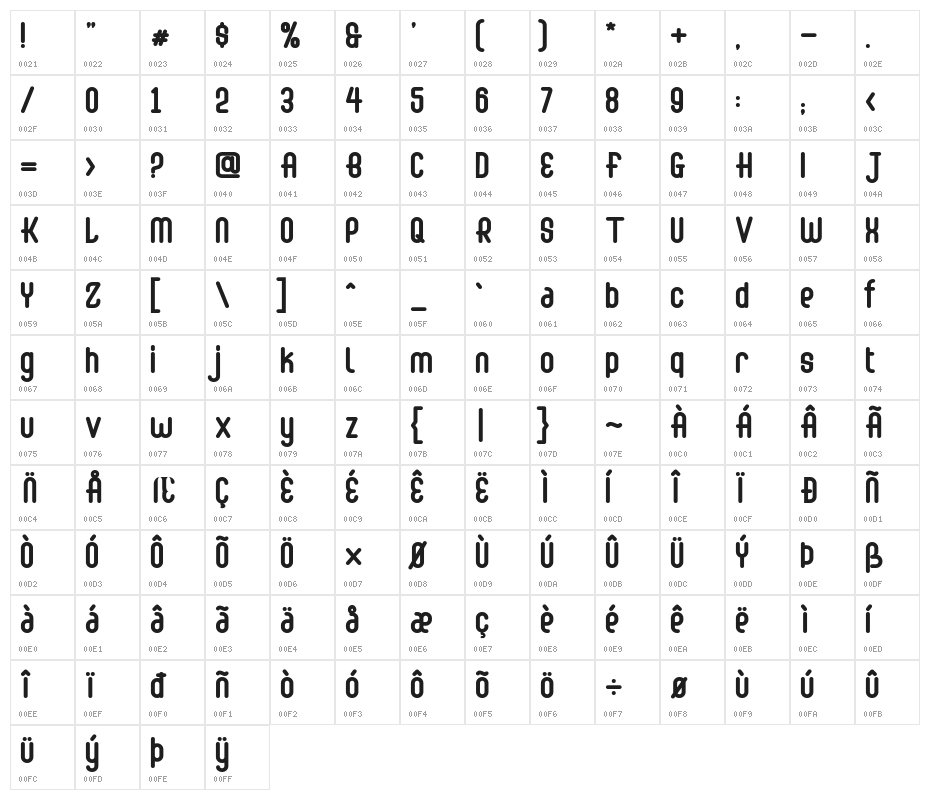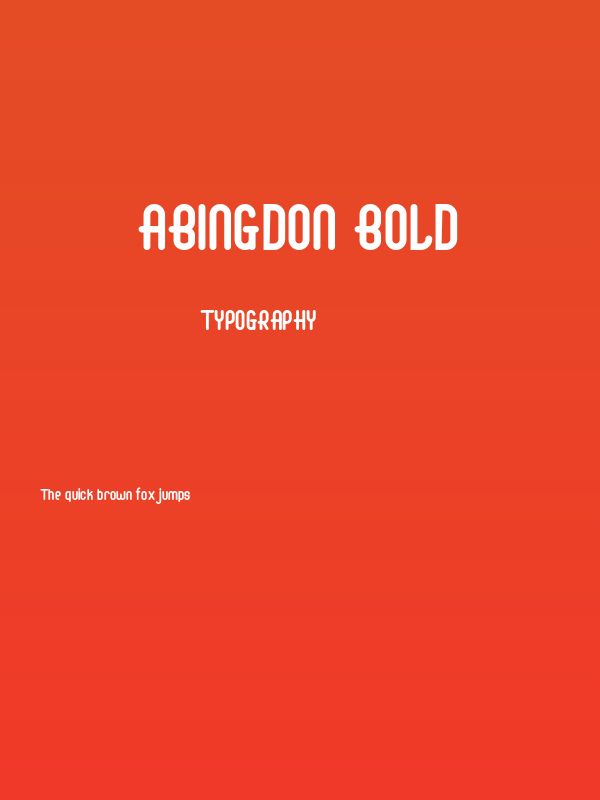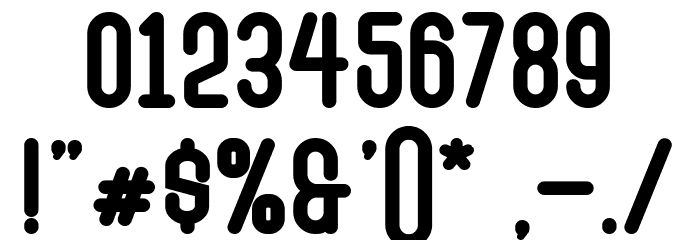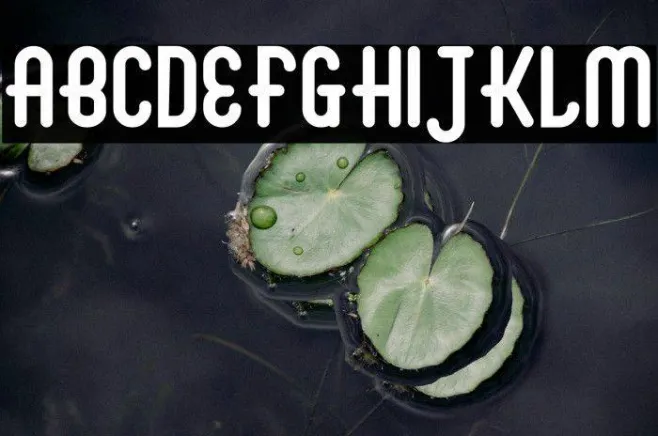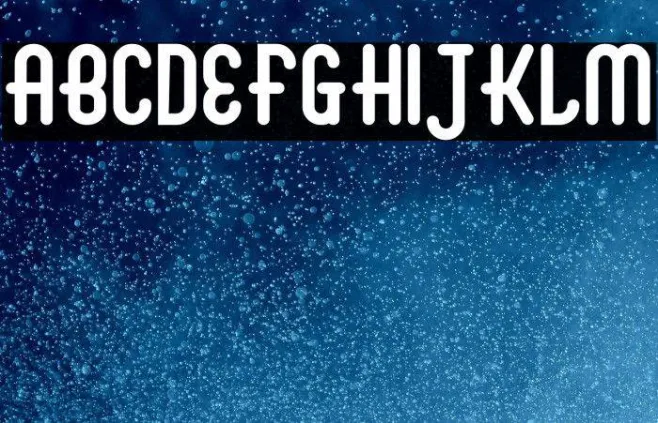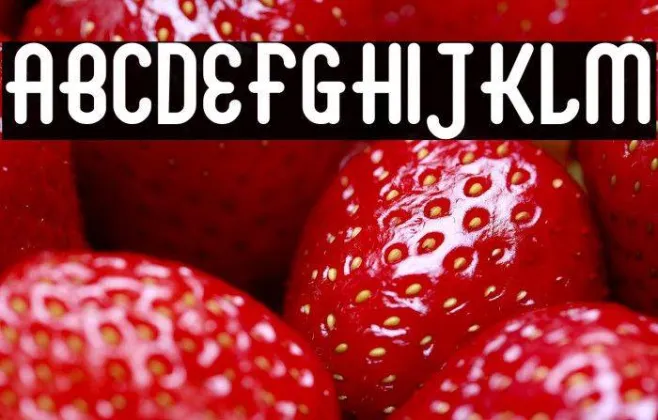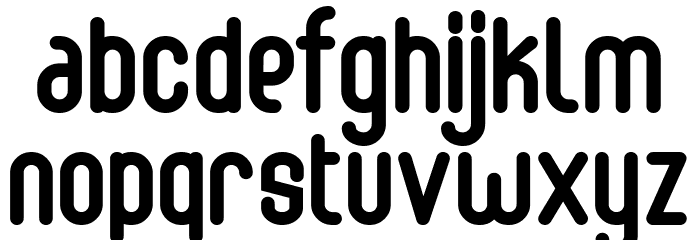
Abingdon Bold Font
Abingdon Bold Description
This font features a bold and rounded sans-serif style, characterized by its smooth curves and uniform stroke width. The letters are evenly spaced, providing a clean and modern appearance. The uppercase and lowercase letters maintain a consistent height, enhancing readability. The numerals are distinct and align well with the overall design, making them suitable for various applications. Special characters are included, maintaining the same rounded and bold aesthetic. This font's simplicity and clarity make it versatile for both digital and print media.